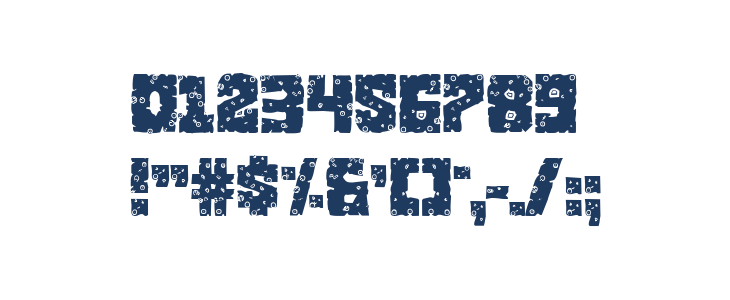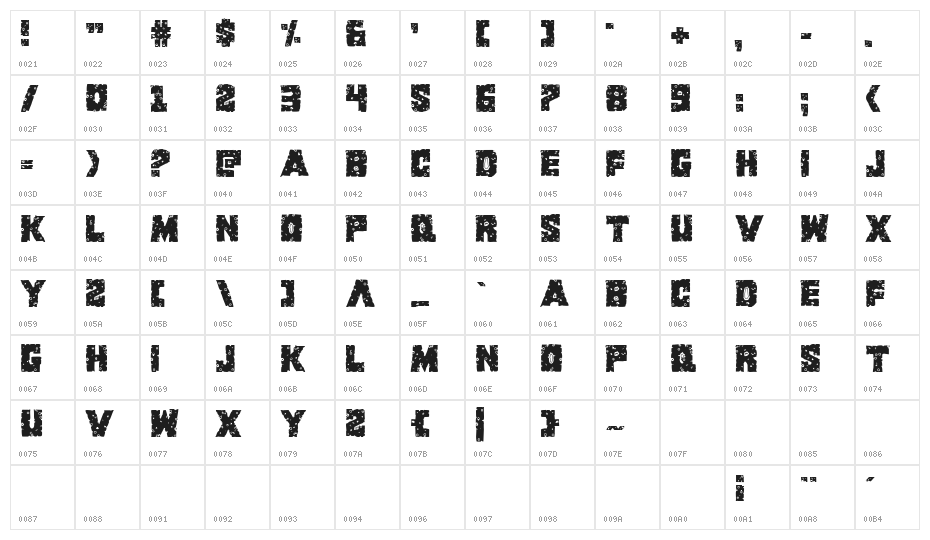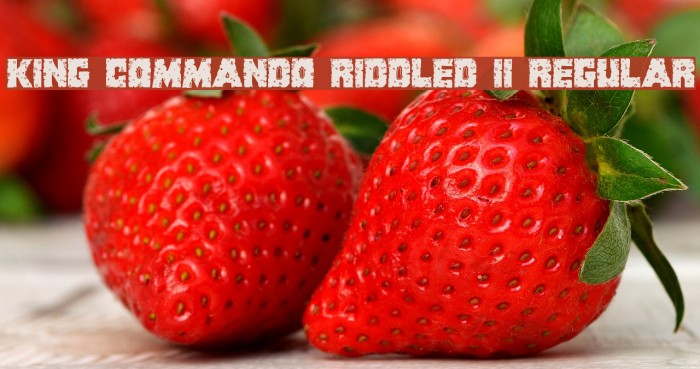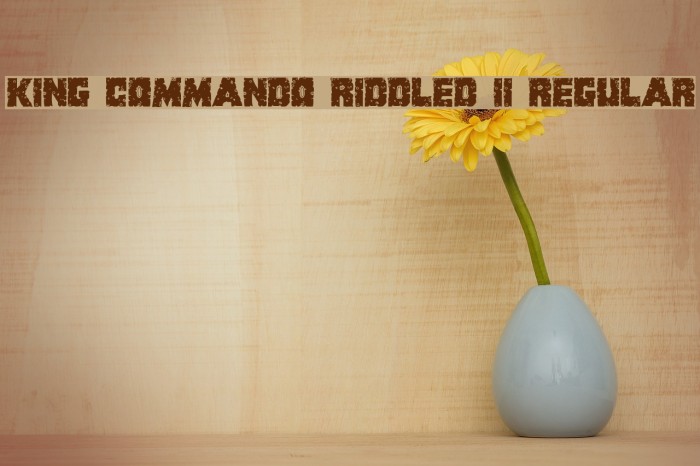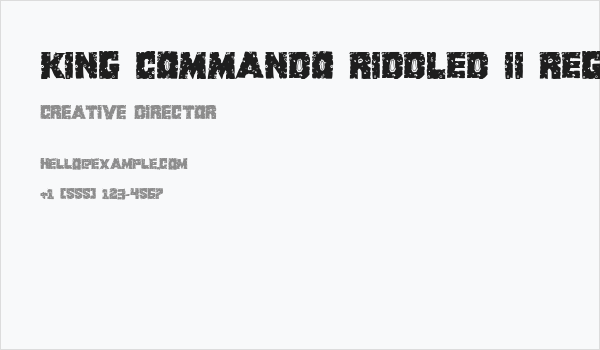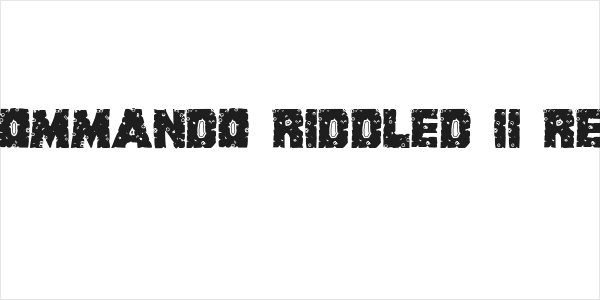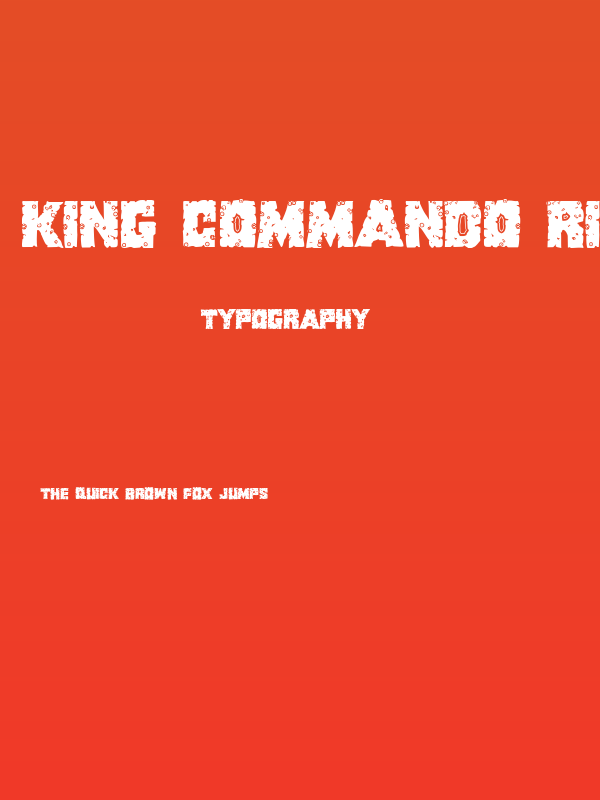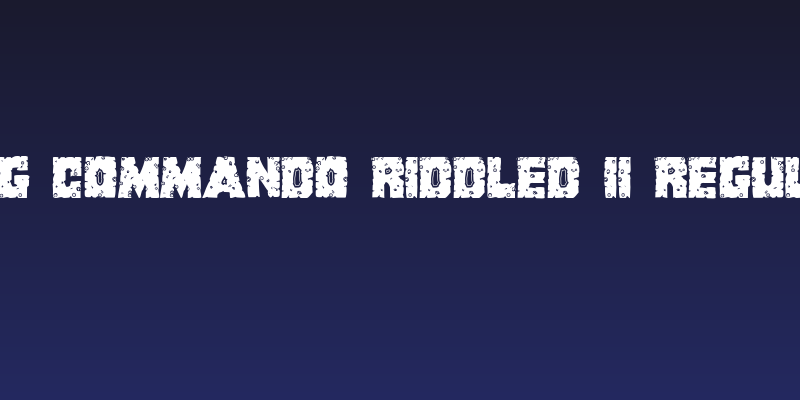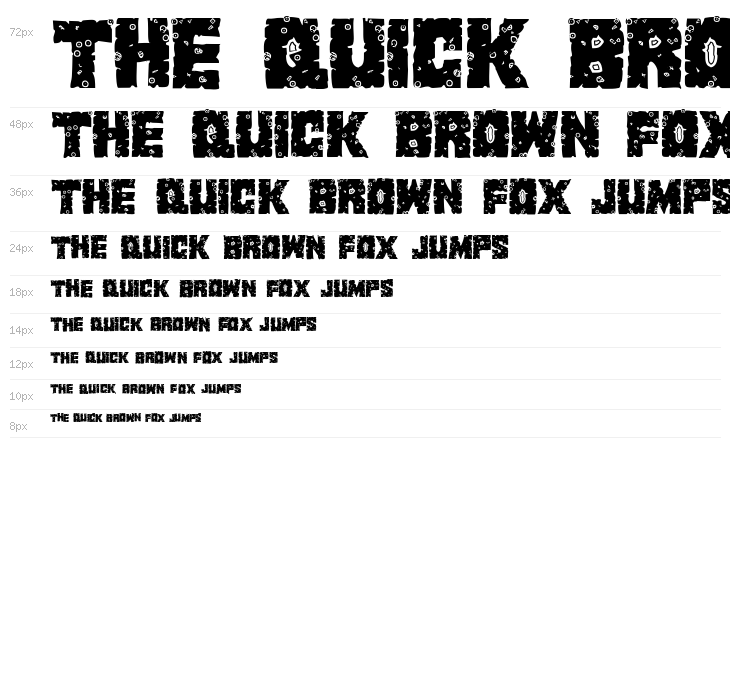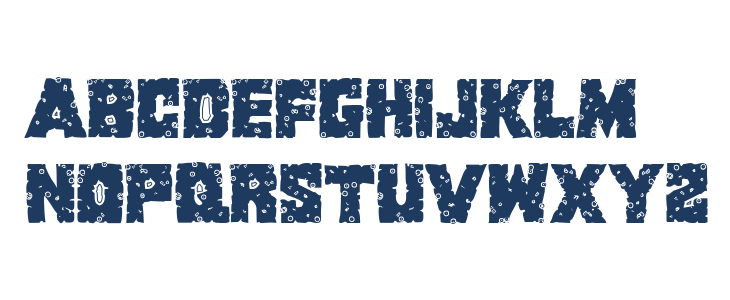
King Commando Riddled II Regular Font
King Commando Riddled II Regular Description
This font features a bold and rugged design, characterized by a distressed and riddled appearance. The letters are heavily textured, giving them a worn and battle-scarred look, reminiscent of military or industrial themes. The uppercase and lowercase letters maintain a consistent style, with each character appearing as though it has been punctured or eroded, adding to the overall gritty aesthetic. The numbers and special characters follow the same design principles, ensuring a cohesive look across all elements. This font is ideal for projects that require a strong, impactful presence with a touch of edginess.
| Proposed Projects | Ideal for military-themed posters, video game titles, industrial branding, and edgy graphic designs. |